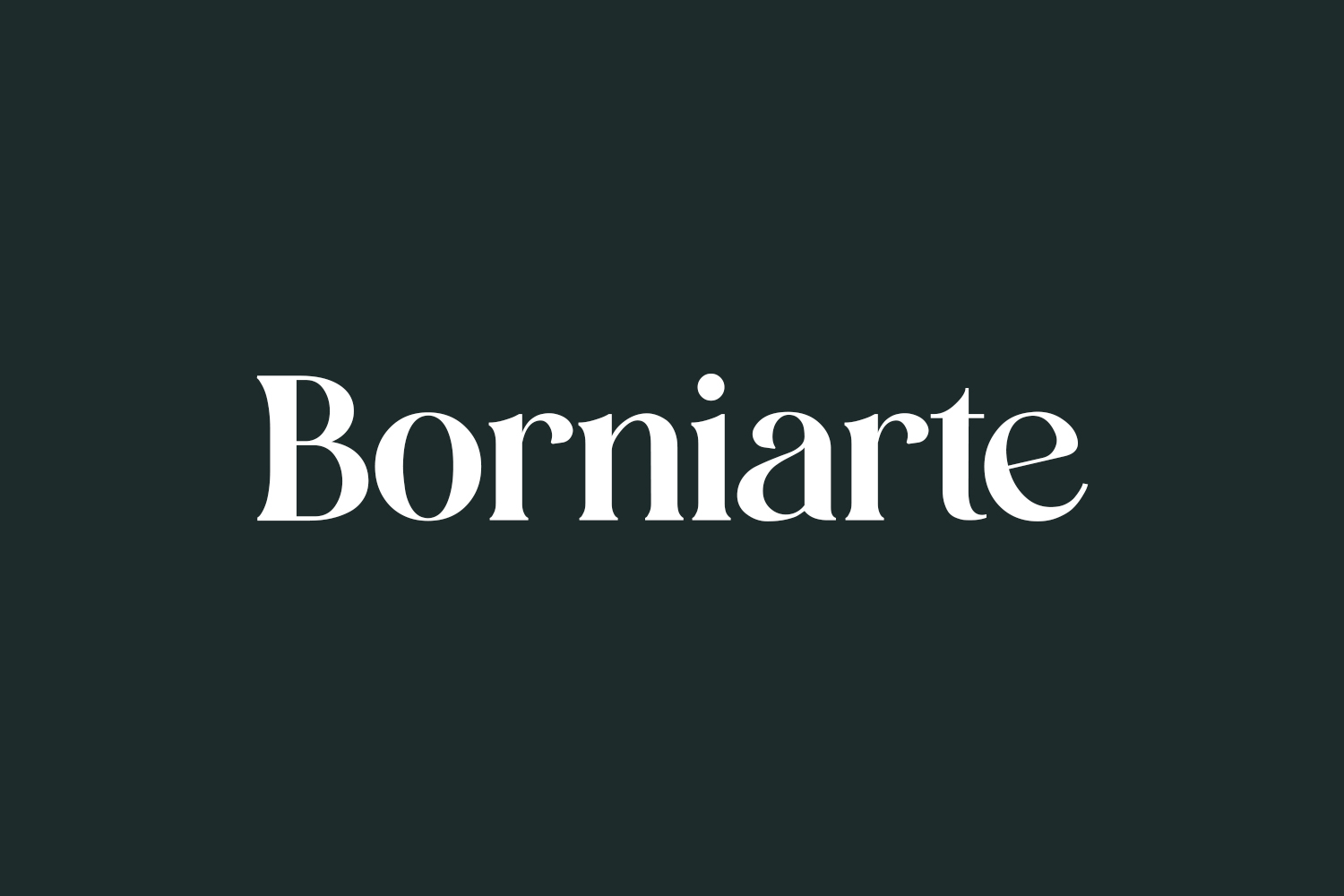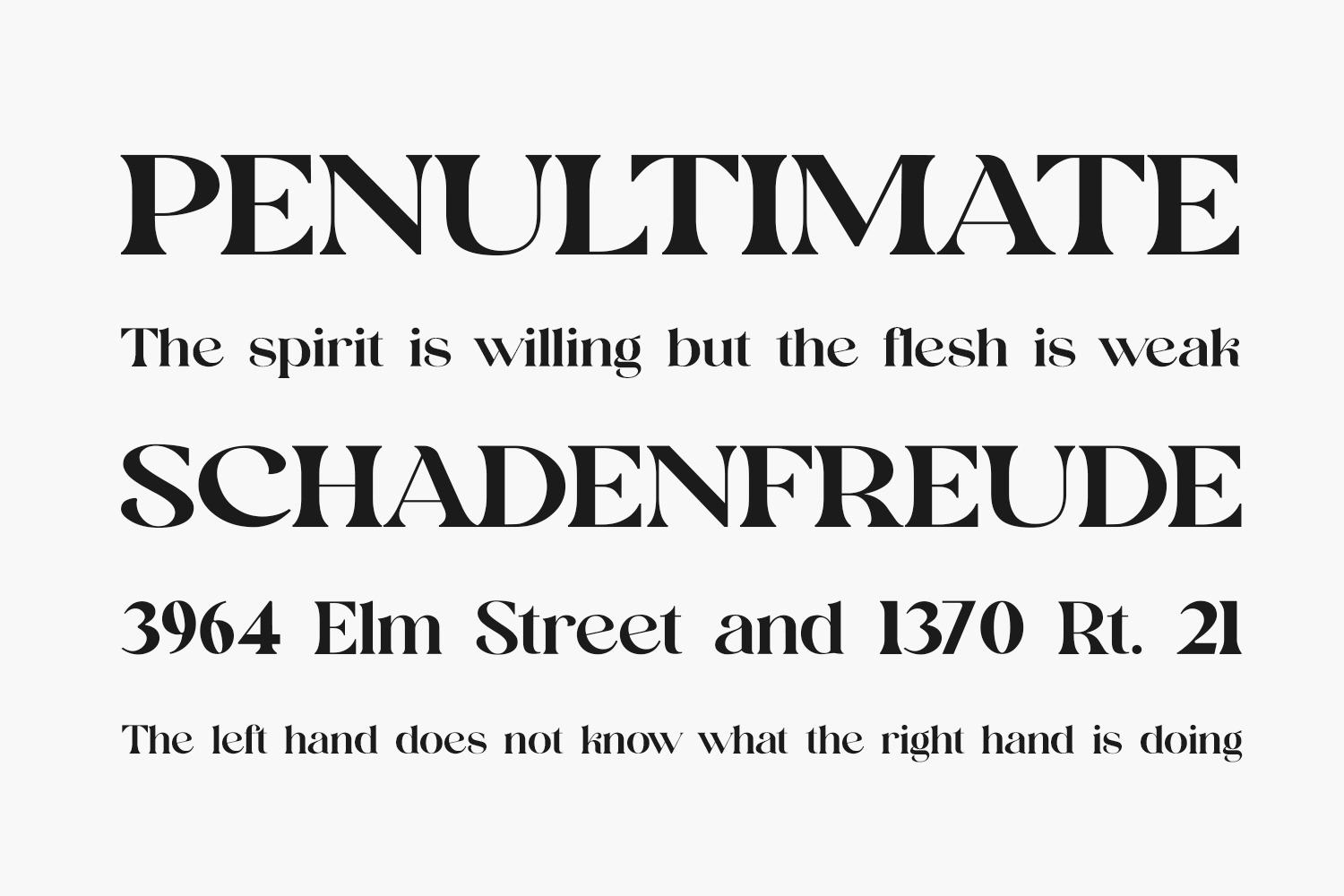
Borniarte Free Font – Bold Caps Display for Modern Typography
Borniarte is a bold and clean all-caps display font designed by UI Creative to bring strong presence and modern clarity to your creative projects. With its structured lines, high contrast between thick and thin strokes, and minimalist detailing, this free decorative typeface works perfectly for crafting powerful logos, magazine headers, digital interfaces, brand kits, and more. Available in TTF format — ideal for designers seeking a professional, readable font that enhances legibility without overpowering your layout.
Why Choose Borniarte?
- Bold Minimalist Style: Combines sharp geometry with thick strokes for a confident, professional appearance.
- Ideal for Headlines & Headers: Perfect for large text applications like billboards, event banners, or digital headlines needing visibility from a distance.
Where to Use Borniarte?
Borniarte shines across a variety of design applications:
- Logos & Brand Identity: Adds intensity to brand identities for tech startups, lifestyle blogs, or fashion labels needing a loud tone.
- Poster & Billboard Design: Designed for maximum visibility — makes headlines pop in outdoor advertising.
- Digital Interfaces: Ideal for web headers, landing page buttons, or mobile app text where clear communication is essential.
- Editorial Headers: Stands out in blog titles, magazine covers, and banners with a crisp, stylish look.
- Social Media Graphics: Enhances Instagram Stories, TikTok overlays, and YouTube banners with a bold sans-serif presence.
Design Tips with Borniarte
- Glyphs: Uppercase (A-Z), numerals, punctuation, basic Latin characters.